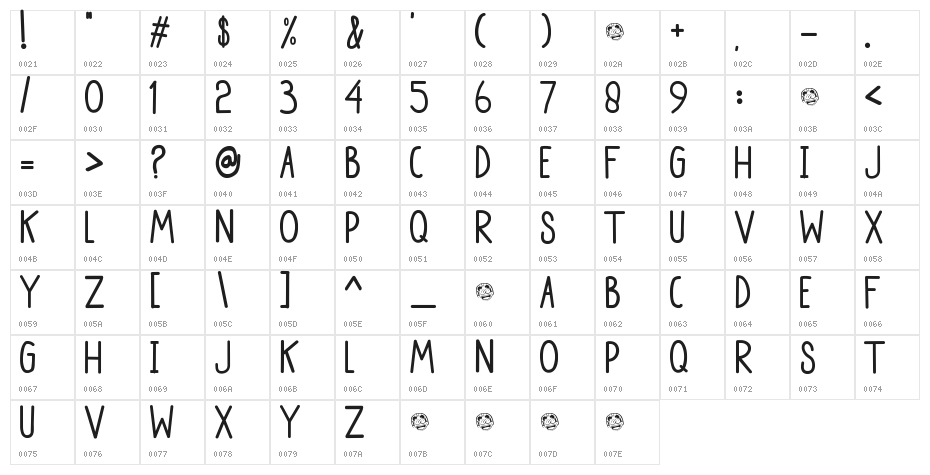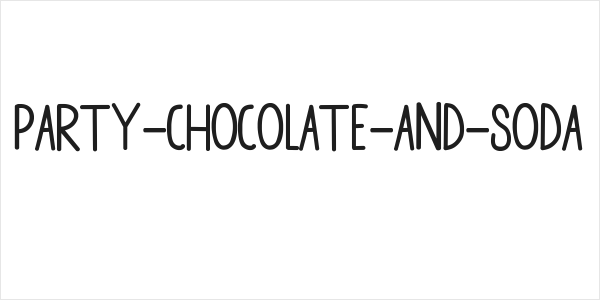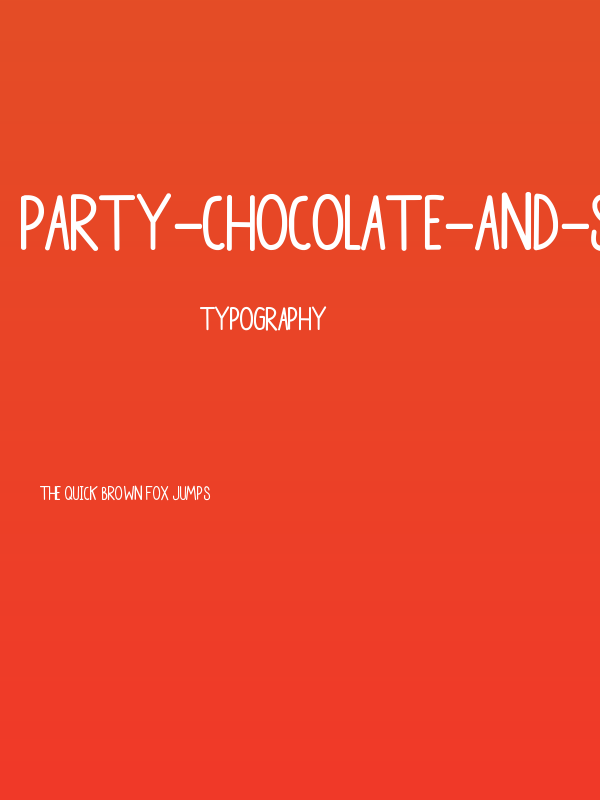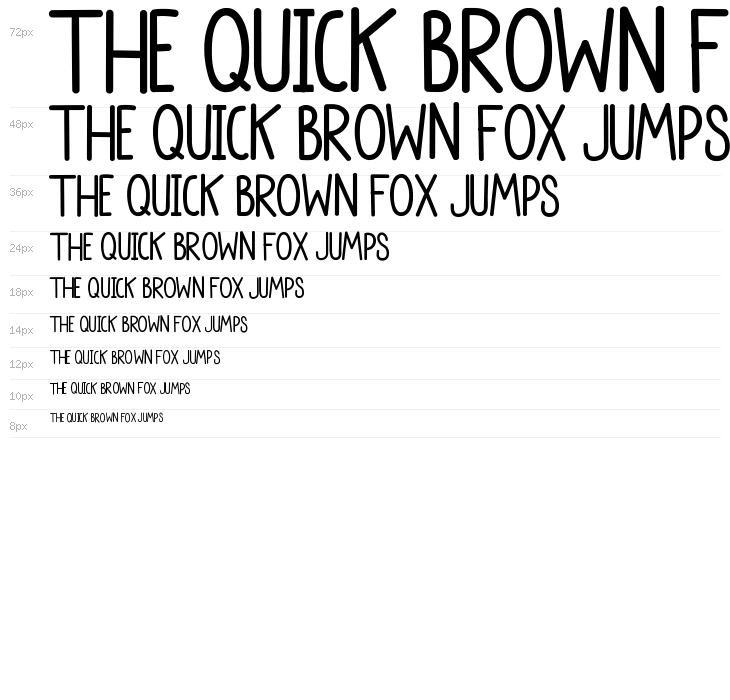
Party-Chocolate-and-Soda Font
Party-Chocolate-and-Soda Description
This font features a clean and modern sans-serif style, characterized by its uniform stroke width and minimalistic design. The letters are evenly spaced, providing a balanced and harmonious appearance. The simplicity of the font makes it versatile for various applications, offering a contemporary look that is both professional and approachable. Its clarity and readability are enhanced by the consistent line thickness, making it suitable for both digital and print media. The font's design is straightforward yet elegant, allowing it to be used in a wide range of projects without overwhelming the visual content.